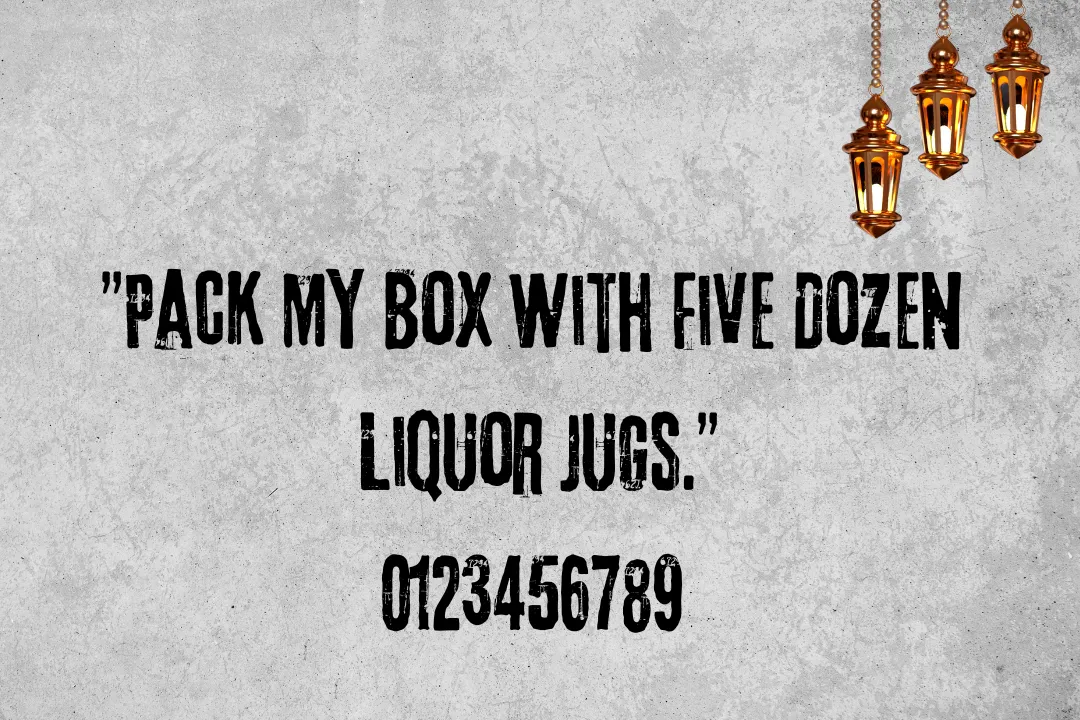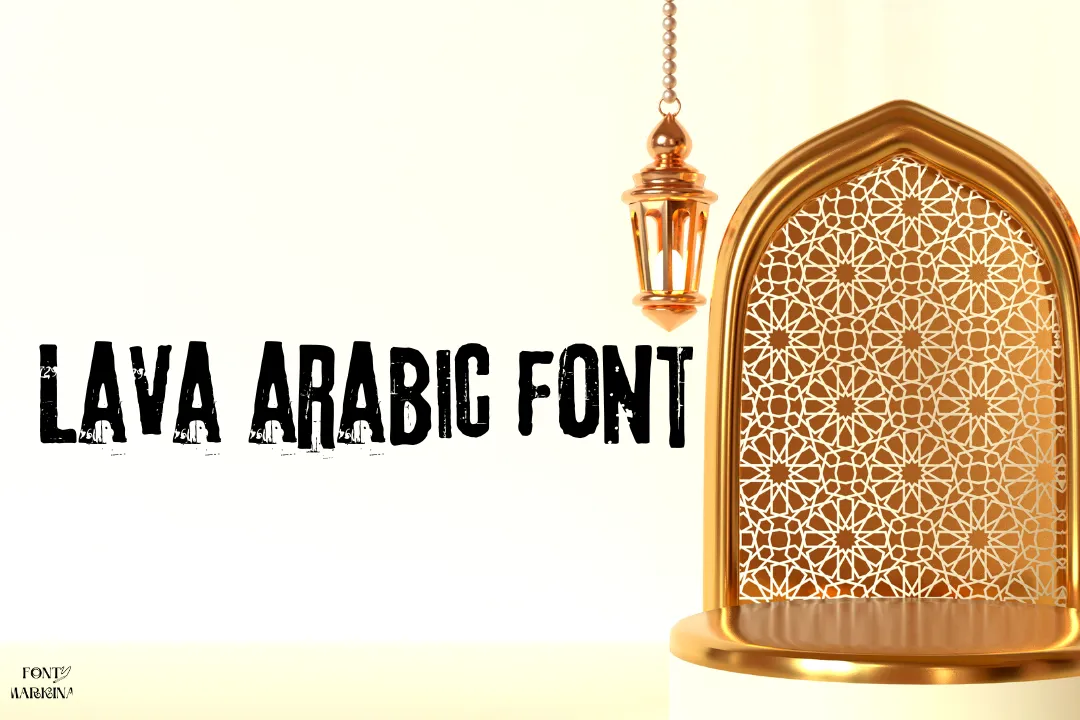
Hey! here is Lava Arabic Font a very saleable texture especially for you. This typography lies in the classification of the Arabic Family of fonts. Ibrahim Hamdi is the main and original creator of this family. This typography has Latin characters that make it classic.
These Latin characters of this texture are developed with the help of Bumbayo Font Fabrik. This gorgeous texture has only one style that makes this typography more attractive and modern. This notable feature texture is very effective for Canva and Adobe.
Usage of Lava Arabic Font
This Arabic font is used in a great number of fields from printing designs to large display projects. All teachers use this family for all of their presentations. Students also prepare their presentations and notes with https://lightgoldenrodyellow-scorpion-236469.hostingersite.com/wp-admin/edit-comments.phpthe aid of this calligraphy Arabic family.
All game developers and graphic designers wish to find such type of typefaces and then pick them out and put it in all of their plans. You can also use this family for different types of thumbnails and photo and video editing. In all higher and more famous companies, this typography is mostly used.
Lava Arabic Font View
| Designer | Ibrahim Hamdi |
| Type | Arabic |
Who is the original designer of Lava Arabic Font?
Ibrahim Hamdi is the main and original creator of this typography.
What is the category of Lava Arabic?
This stunning typeface belongs to the classification Arabic family of fonts.